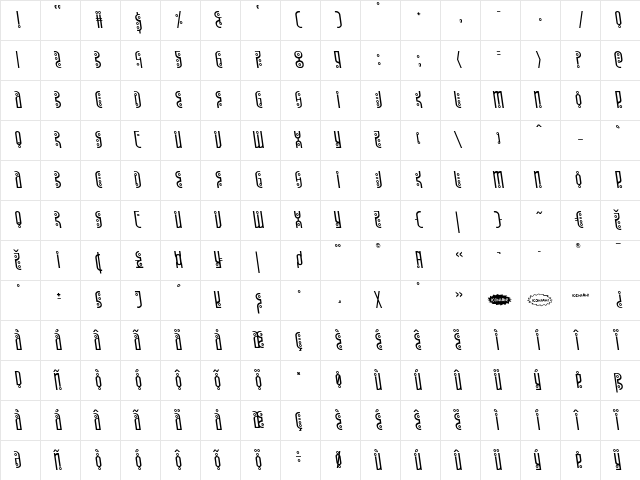
Underground Rose Leftalic Italic Font Preview
Design Context for Underground Rose Leftalic Typeface
Underground Rose Leftalic softens its letterforms with rounded terminals, giving it an approachable, friendly quality that works well in consumer-facing and digital contexts. The slanted form adds forward momentum and visual energy.
Well-suited to UI design, mobile interfaces, and any brand that wants approachability without sacrificing clarity.
Font Pairing: Pairs well with a rounded or humanist sans for body copy, maintaining the friendly tone without relying on Underground Rose Leftalic to carry extended reading.
Pro Tip: Use Underground Rose Leftalic for UI elements, app interfaces, and anywhere a friendly, approachable tone needs to be maintained without sacrificing clarity.